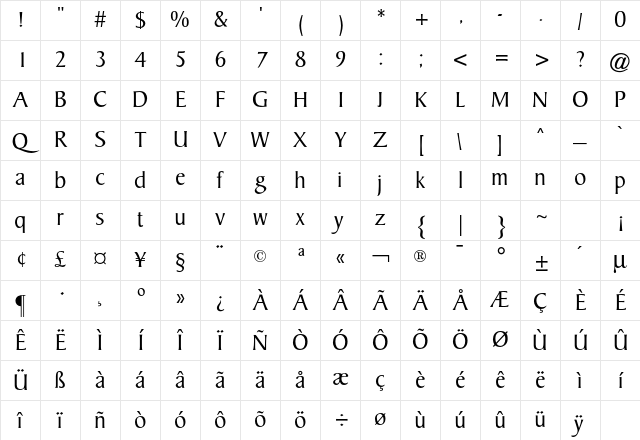
Complete Signature CG Light Regular glyph index. Displaying only characters natively supported by Signature CG Light Regular font.
Signature CG Light is a composed and adaptable typeface that performs quietly and consistently across a wide range of design contexts. Its slender proportions lend an understated elegance to any composition.